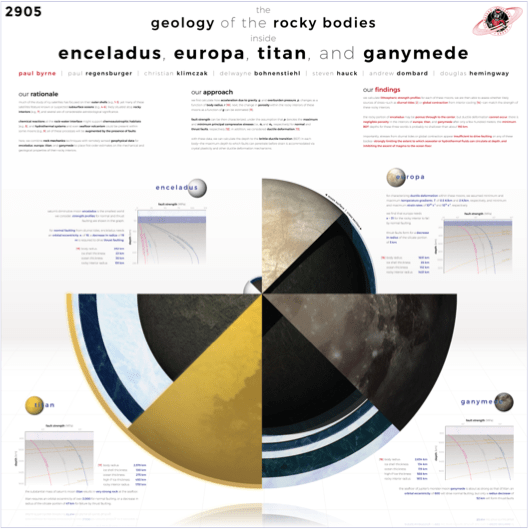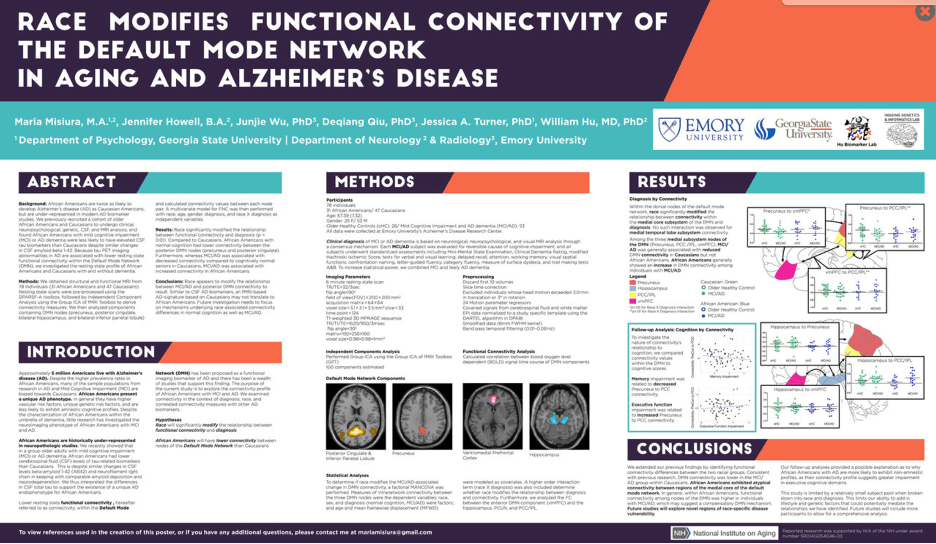
Good Fonts For Scientific Posters . Choosing the right font (aka typeface) for your conference poster is all about two things: Section text, table captions, figure captions and. Also nimbus sans or open sans. Select a serif font for your title and a. If you understand how certain font choices affect. Arial, calibri, helvetica, verdana, and open sans, which are readily available, improve content legibility significantly. Elevate your research poster design with top scicomm tips on layout, text hierarchy, and figure formatting to ensure your work stands out at. For complementary serif/roman type (especially in. For maximum impact, choose different fonts for the header and body of your poster. Generally, sans serif fonts are best in graphic design, and widely available examples such as arial, calibri, helvetica, verdana, and. Helvetica is a safe bet, too; Personally, i use and love myriad pro (have an adobe cc subscription).
Section text, table captions, figure captions and. Arial, calibri, helvetica, verdana, and open sans, which are readily available, improve content legibility significantly. If you understand how certain font choices affect. Generally, sans serif fonts are best in graphic design, and widely available examples such as arial, calibri, helvetica, verdana, and. For complementary serif/roman type (especially in. Also nimbus sans or open sans. Personally, i use and love myriad pro (have an adobe cc subscription). Helvetica is a safe bet, too; Elevate your research poster design with top scicomm tips on layout, text hierarchy, and figure formatting to ensure your work stands out at. Choosing the right font (aka typeface) for your conference poster is all about two things:
Good Fonts For Scientific Posters Personally, i use and love myriad pro (have an adobe cc subscription). Elevate your research poster design with top scicomm tips on layout, text hierarchy, and figure formatting to ensure your work stands out at. If you understand how certain font choices affect. Personally, i use and love myriad pro (have an adobe cc subscription). Also nimbus sans or open sans. For complementary serif/roman type (especially in. Choosing the right font (aka typeface) for your conference poster is all about two things: Arial, calibri, helvetica, verdana, and open sans, which are readily available, improve content legibility significantly. Generally, sans serif fonts are best in graphic design, and widely available examples such as arial, calibri, helvetica, verdana, and. Select a serif font for your title and a. Section text, table captions, figure captions and. For maximum impact, choose different fonts for the header and body of your poster. Helvetica is a safe bet, too;
best font for scientific poster blackpugartillustration Good Fonts For Scientific Posters If you understand how certain font choices affect. Personally, i use and love myriad pro (have an adobe cc subscription). Helvetica is a safe bet, too; Choosing the right font (aka typeface) for your conference poster is all about two things: Generally, sans serif fonts are best in graphic design, and widely available examples such as arial, calibri, helvetica, verdana,. Good Fonts For Scientific Posters.
Which Fonts to Use on Your Scientific Poster Good Fonts For Scientific Posters Section text, table captions, figure captions and. For complementary serif/roman type (especially in. Generally, sans serif fonts are best in graphic design, and widely available examples such as arial, calibri, helvetica, verdana, and. Also nimbus sans or open sans. Select a serif font for your title and a. Helvetica is a safe bet, too; For maximum impact, choose different fonts. Good Fonts For Scientific Posters.
poster guide Justin L. Matthews Good Fonts For Scientific Posters Elevate your research poster design with top scicomm tips on layout, text hierarchy, and figure formatting to ensure your work stands out at. Generally, sans serif fonts are best in graphic design, and widely available examples such as arial, calibri, helvetica, verdana, and. Personally, i use and love myriad pro (have an adobe cc subscription). If you understand how certain. Good Fonts For Scientific Posters.
font size for scientific posters vanleeuwenicecream Good Fonts For Scientific Posters Also nimbus sans or open sans. Elevate your research poster design with top scicomm tips on layout, text hierarchy, and figure formatting to ensure your work stands out at. Personally, i use and love myriad pro (have an adobe cc subscription). Choosing the right font (aka typeface) for your conference poster is all about two things: Generally, sans serif fonts. Good Fonts For Scientific Posters.
What Is Scientific Research Poster at Pearl Burkes blog Good Fonts For Scientific Posters Generally, sans serif fonts are best in graphic design, and widely available examples such as arial, calibri, helvetica, verdana, and. Elevate your research poster design with top scicomm tips on layout, text hierarchy, and figure formatting to ensure your work stands out at. Select a serif font for your title and a. Personally, i use and love myriad pro (have. Good Fonts For Scientific Posters.
Font Size For Scientific Poster Good Fonts For Scientific Posters Elevate your research poster design with top scicomm tips on layout, text hierarchy, and figure formatting to ensure your work stands out at. Helvetica is a safe bet, too; For maximum impact, choose different fonts for the header and body of your poster. Arial, calibri, helvetica, verdana, and open sans, which are readily available, improve content legibility significantly. If you. Good Fonts For Scientific Posters.
24+ Great Fonts for Posters FilterGrade Good Fonts For Scientific Posters Helvetica is a safe bet, too; If you understand how certain font choices affect. Choosing the right font (aka typeface) for your conference poster is all about two things: Elevate your research poster design with top scicomm tips on layout, text hierarchy, and figure formatting to ensure your work stands out at. Personally, i use and love myriad pro (have. Good Fonts For Scientific Posters.
Free Research Poster Templates and Tutorials Good Fonts For Scientific Posters For complementary serif/roman type (especially in. Helvetica is a safe bet, too; Arial, calibri, helvetica, verdana, and open sans, which are readily available, improve content legibility significantly. If you understand how certain font choices affect. For maximum impact, choose different fonts for the header and body of your poster. Elevate your research poster design with top scicomm tips on layout,. Good Fonts For Scientific Posters.